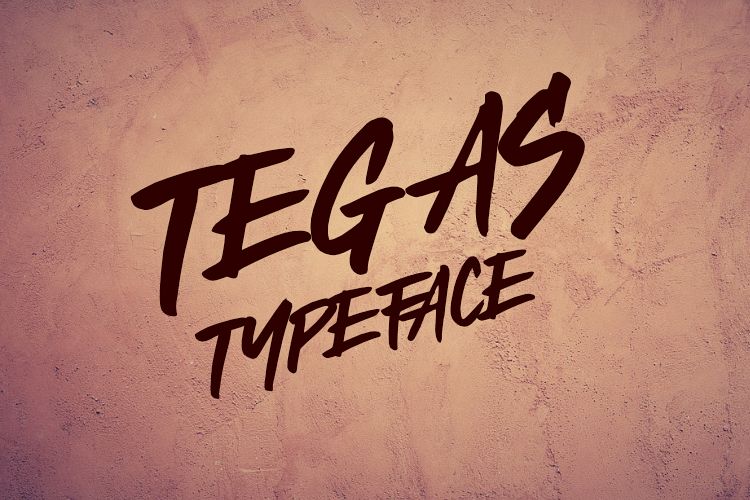
TEGAS TYPEFACE
TEGAS-Regular
OPENBRUSH TYPEFACE was inspired from ink & tints manual handdrawn brush suitable uses for fashion, tshirt, street and others